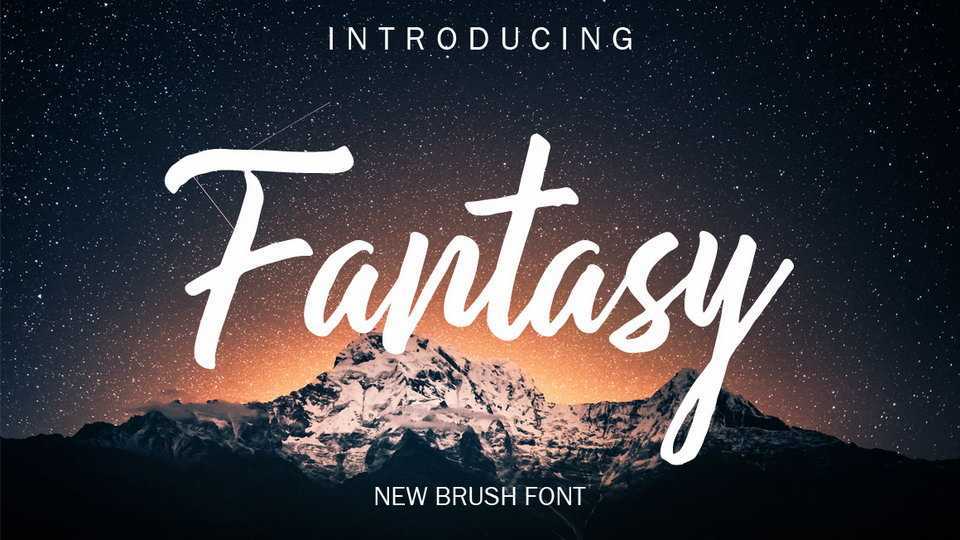
Download Fantasy font, a modern, fresh, casual and stylish hand painted brush font with clean elements. It will add a natural and authentic feel to any design.
Designer: Fontysia Studio